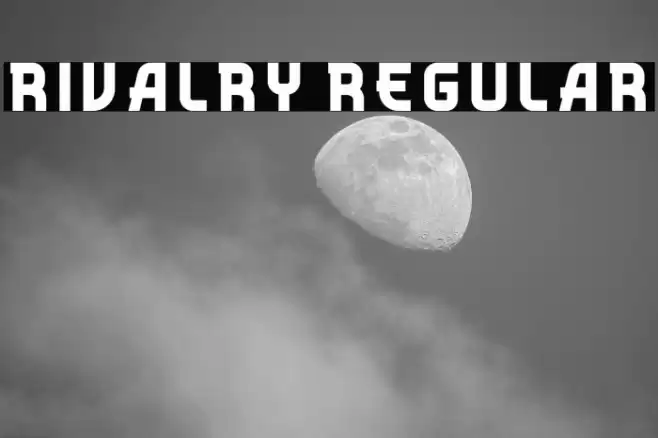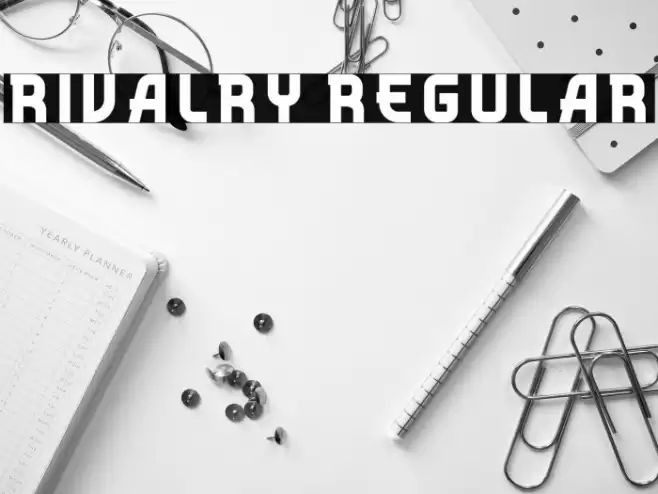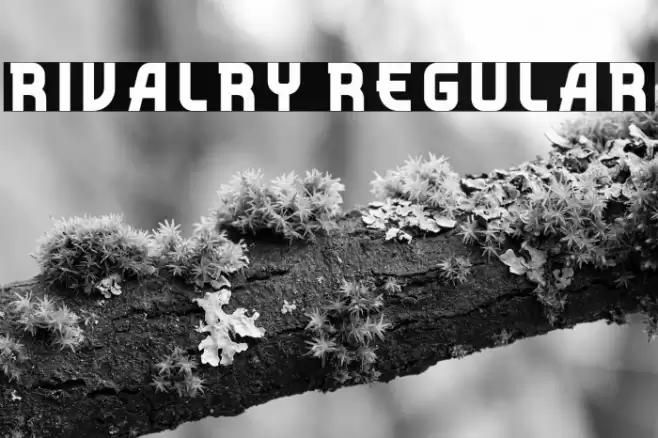
Rivalry Regular Font
Rivalry Regular Description
This font features a bold and geometric design with strong, angular lines and a modern aesthetic. The characters are uniformly structured, providing a sense of balance and stability. The uppercase letters are particularly striking, with a robust presence that commands attention. The numerals and special characters maintain the same boldness, ensuring consistency across all text elements. The font's design is clean and uncluttered, making it suitable for a variety of applications where clarity and impact are essential.
A bold, geometric font with strong, angular lines and a modern aesthetic from Uncategorized fonts.
- Proposed Projects: Ideal for branding, headlines, posters, and any project requiring a strong visual impact.